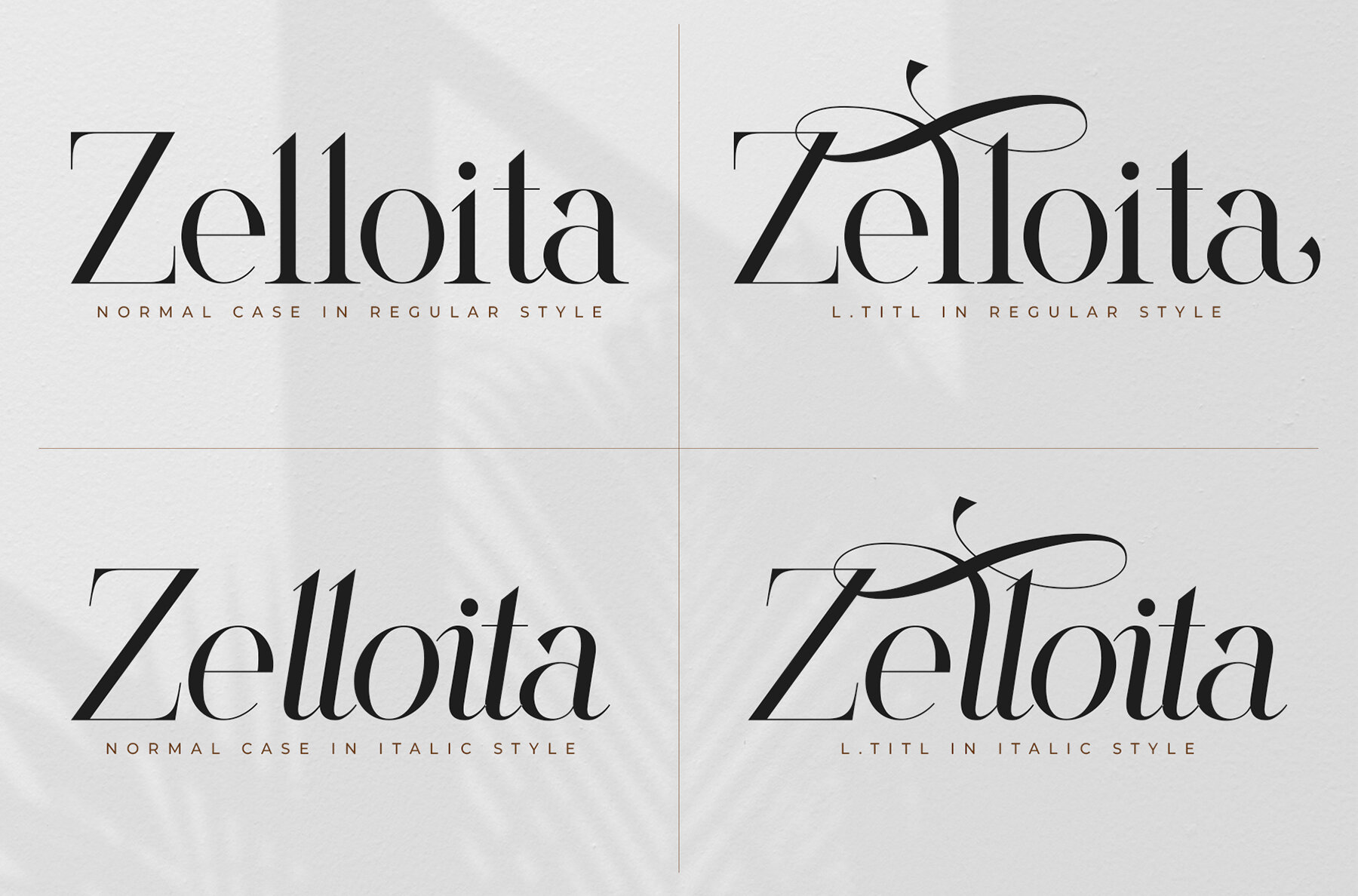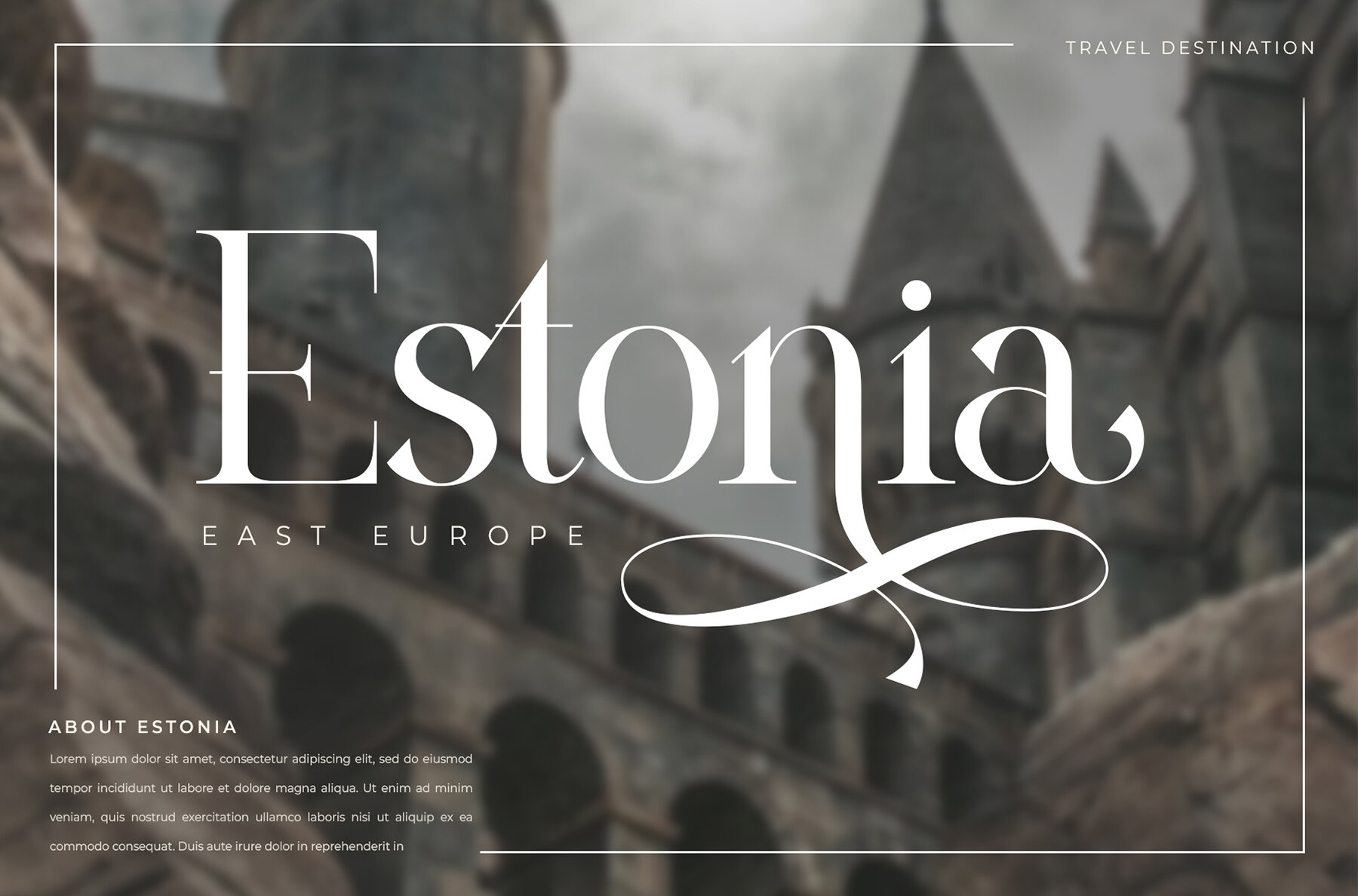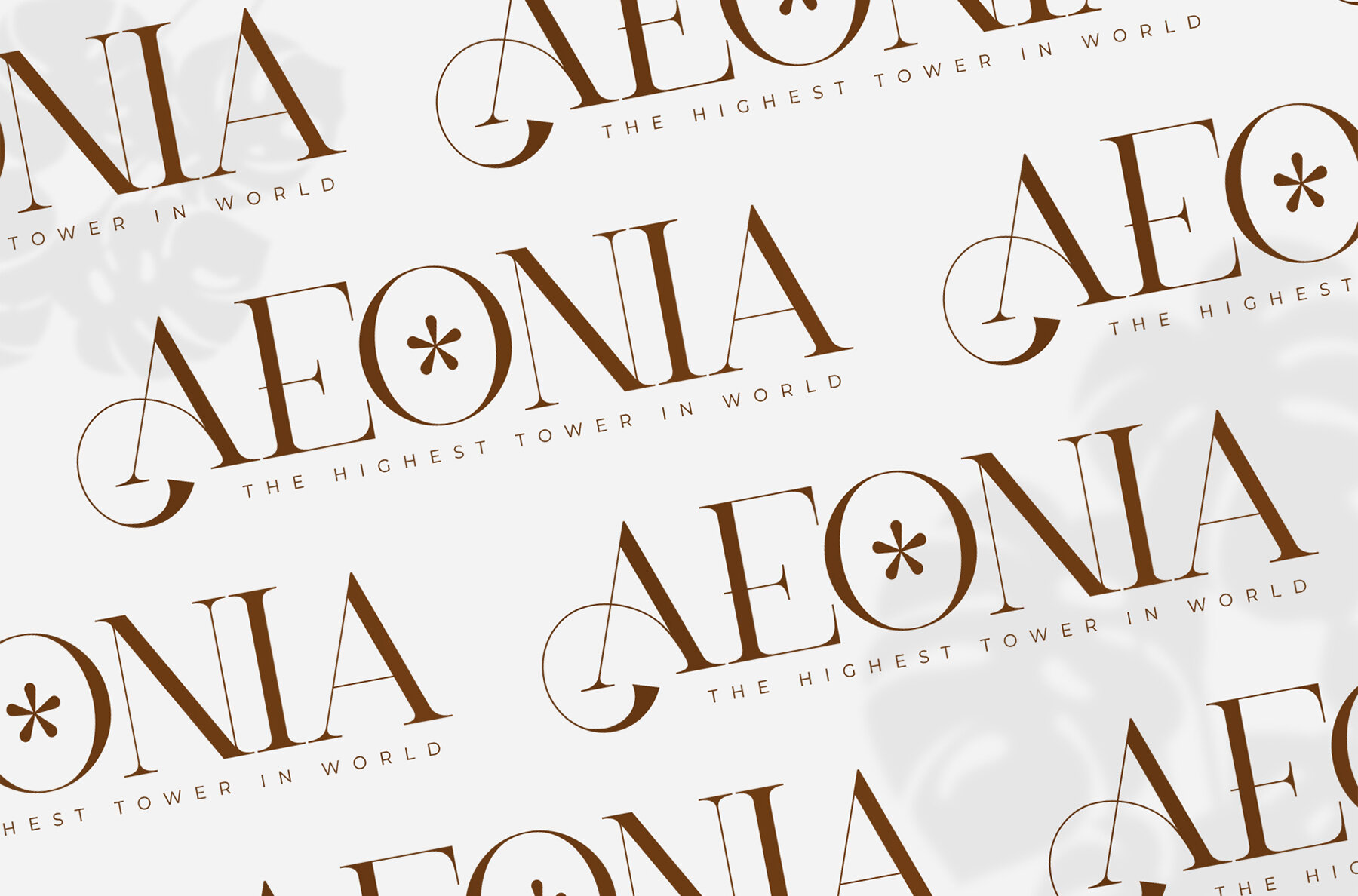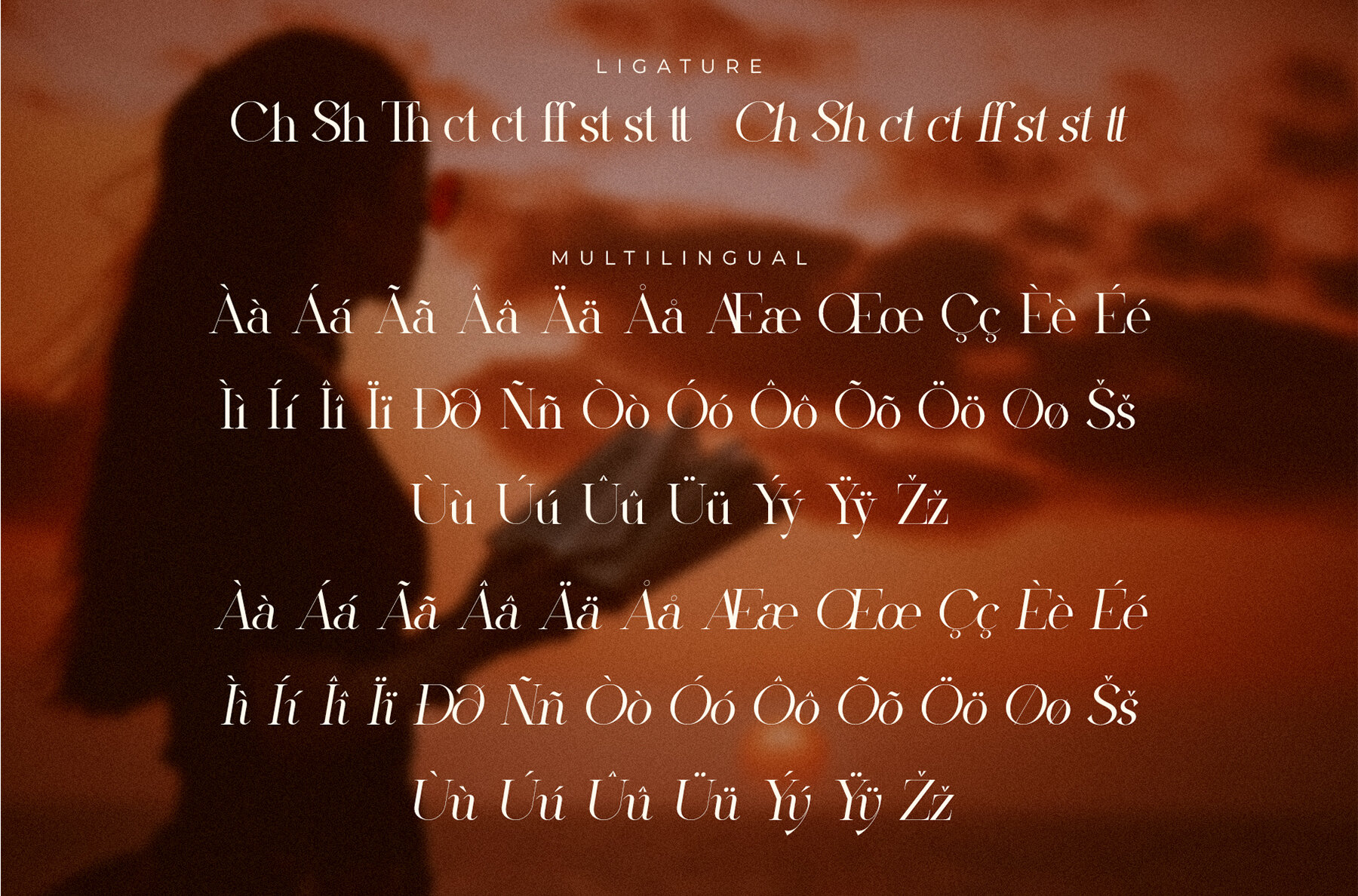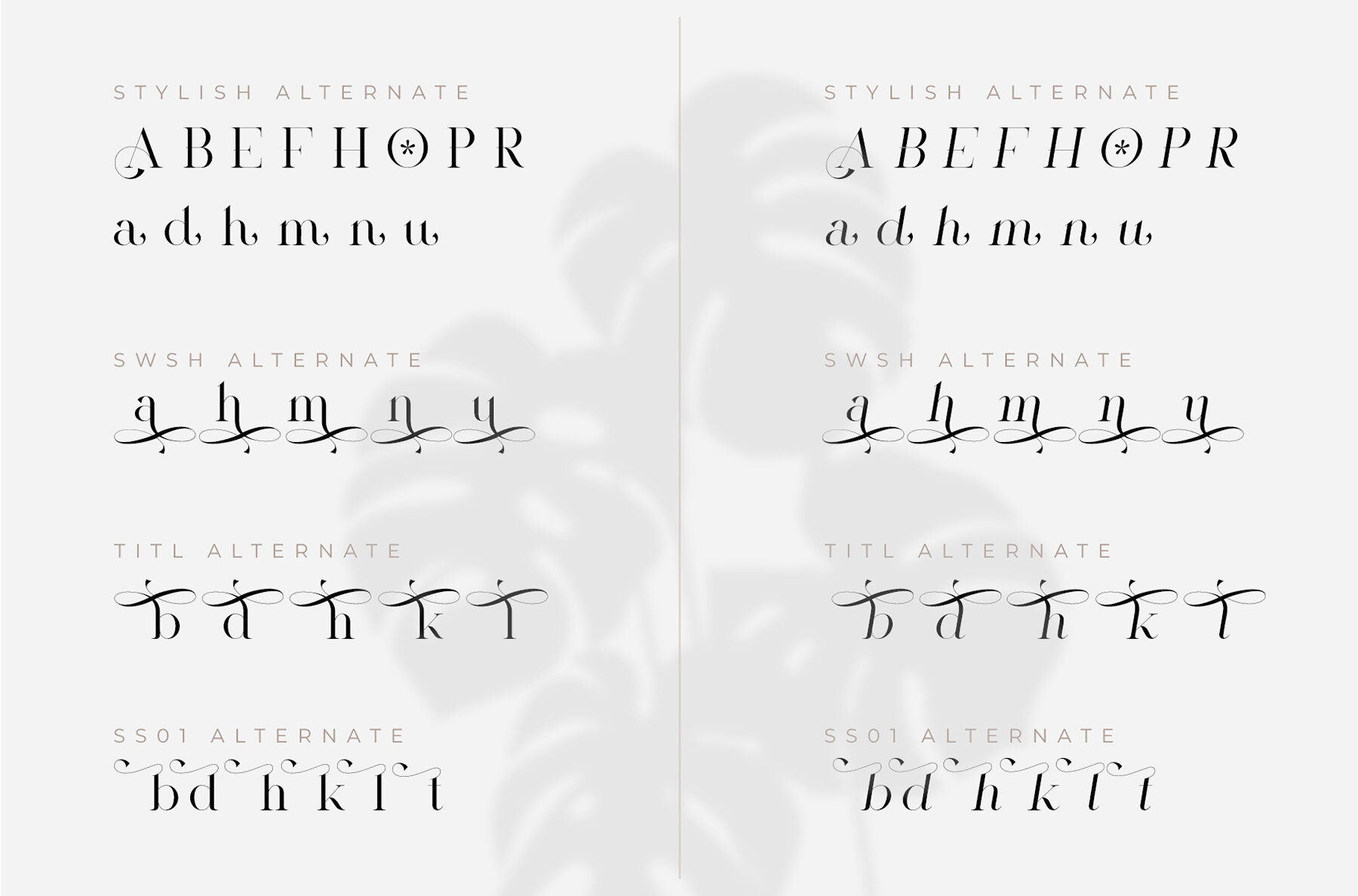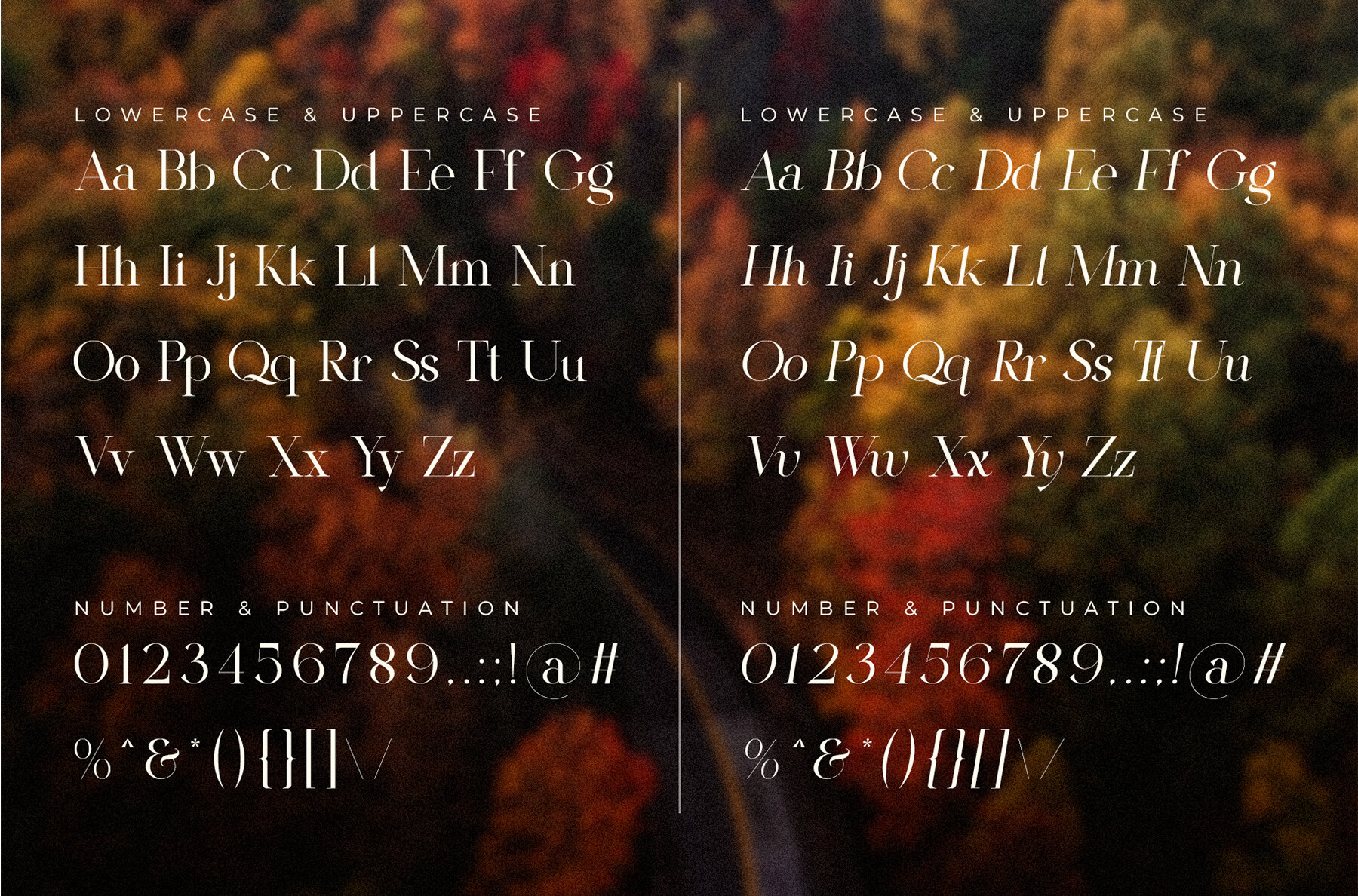
The Shyte Font
The Shyte Serif is a smooth, stylish serif font that exudes sophistication. It contains two main styles, Regular and Italic, which are designed to work elegantly together or separately. With its graceful character, this typeface is ideal for a variety of design purposes including invitation cards, company logos, film titles, business cards, and book titles. The Shyte Serif's stylish alternation and binding make it a perfect partner for any project.The Shyte Serif: Balanced and Elegant Typeface